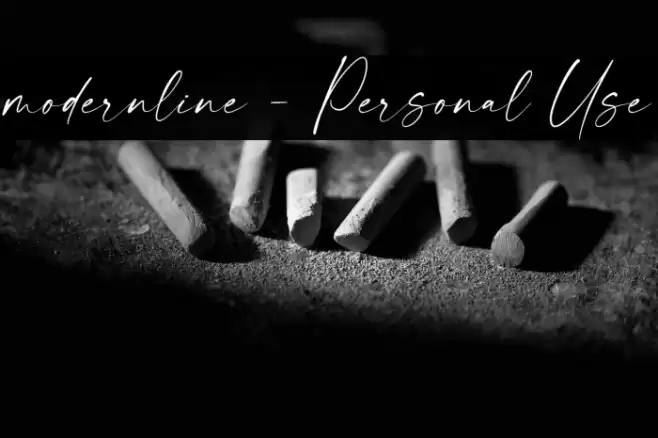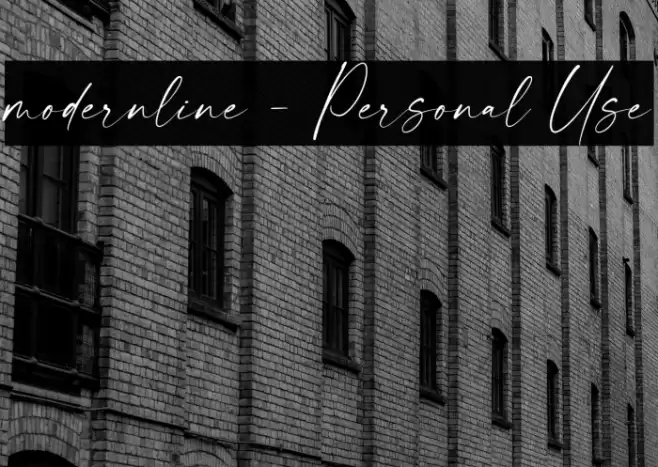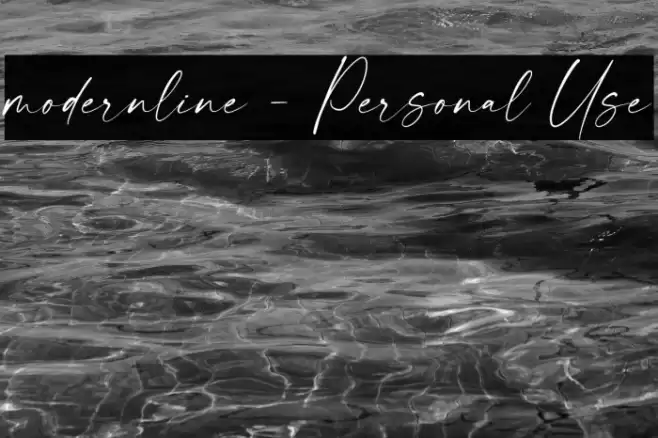
modernline - Personal Use Font
modernline - Personal Use Description
This font features an elegant and flowing script style, characterized by its smooth, cursive strokes and a handwritten appearance. The uppercase letters are tall and slightly slanted, with a refined and sophisticated look, while the lowercase letters maintain a consistent flow, enhancing the script's fluidity. The numerals are designed to match the overall aesthetic, with a graceful and stylish form. Special characters are seamlessly integrated, maintaining the font's cohesive and artistic style. This font exudes a sense of modern elegance and is perfect for projects that require a personal and artistic touch.